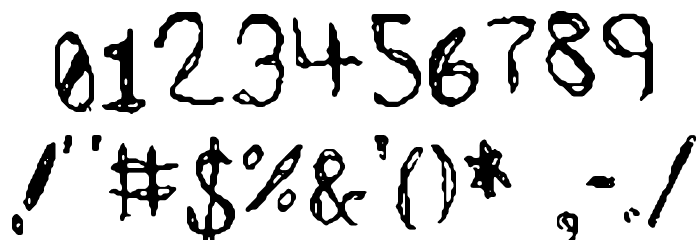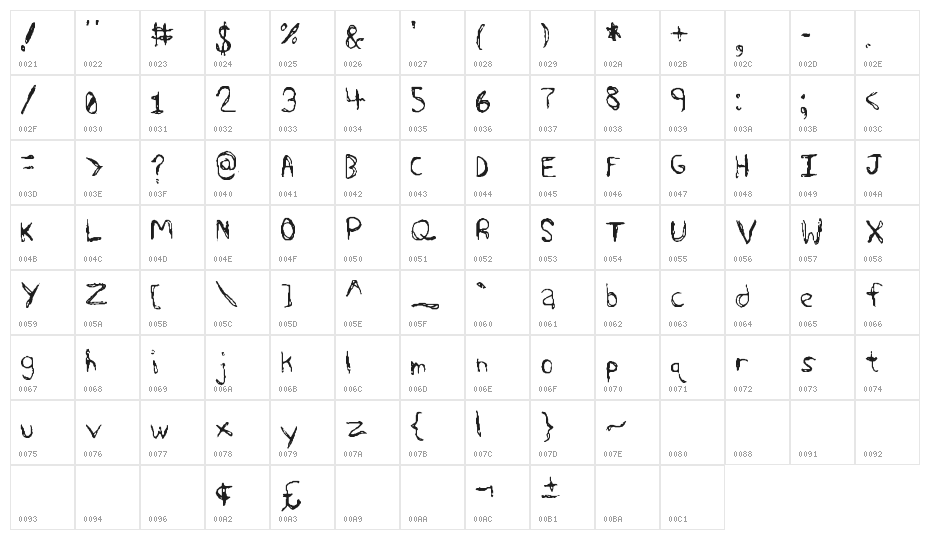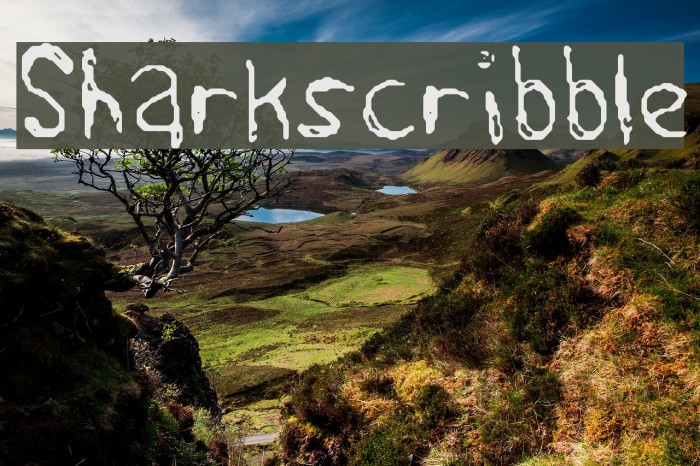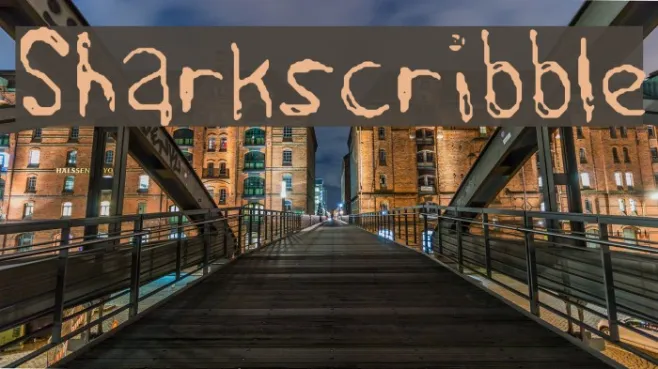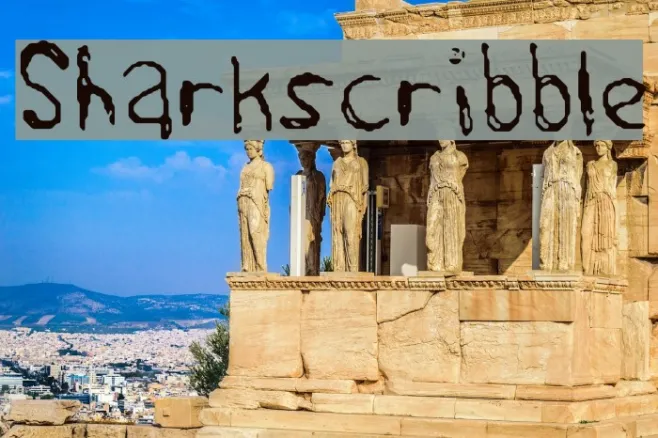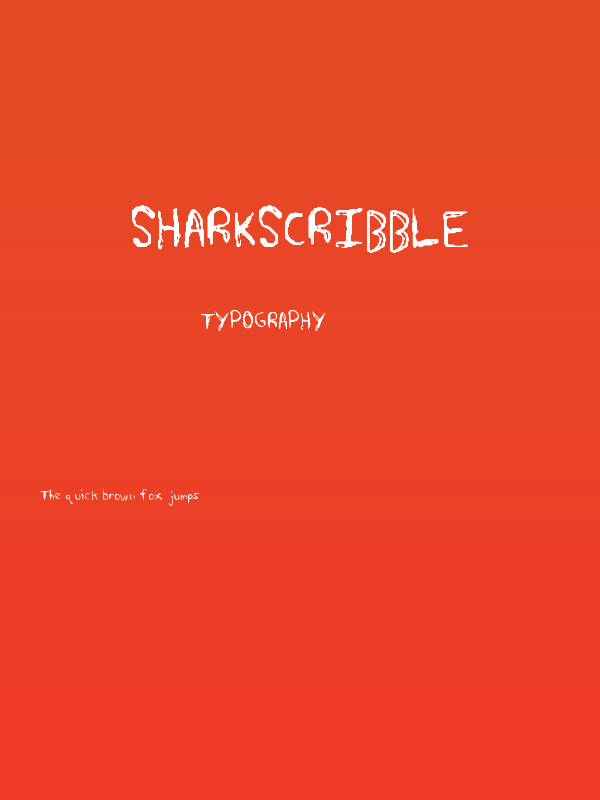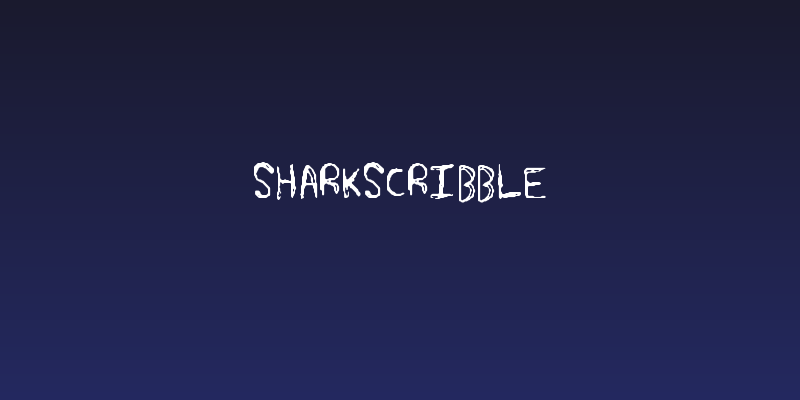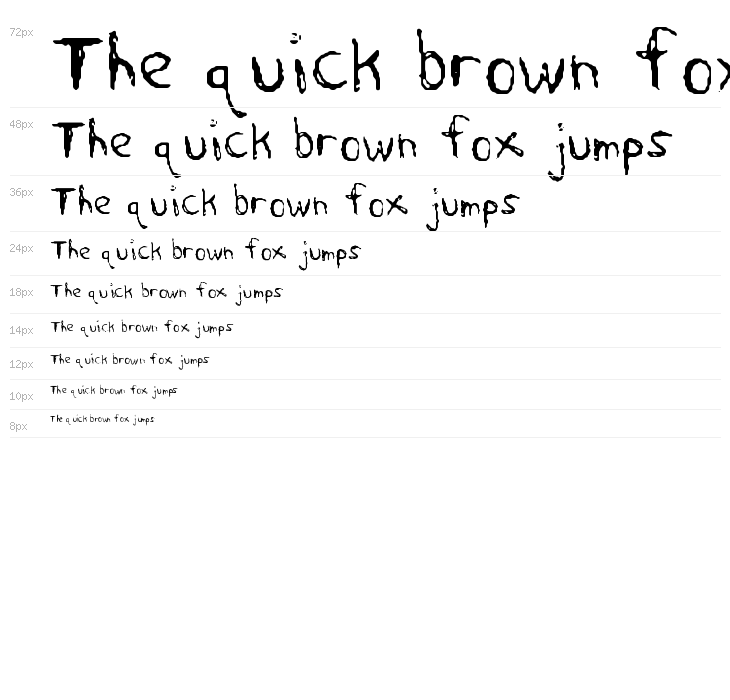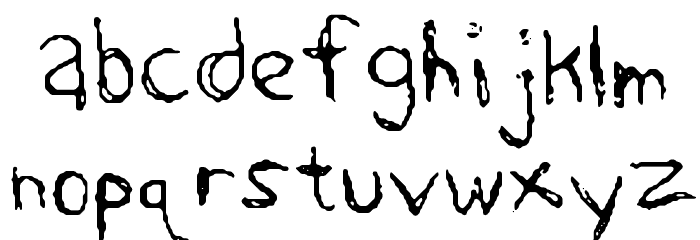
Sharkscribble Font
Sharkscribble Description
This font exudes a raw, hand-drawn aesthetic, reminiscent of scribbles or sketches. The characters are uneven and irregular, giving it a spontaneous and energetic feel. The strokes are bold and vary in thickness, adding to the chaotic charm. Each letter has a unique, quirky shape, with some leaning or appearing slightly distorted, enhancing the informal and playful nature. The numbers and special characters follow the same style, maintaining consistency throughout. This font is ideal for projects that require a personal, artistic touch.
| Use Case | Logos, Posters, Artistic projects |
| Proposed Projects | Great for artistic projects, children's books, informal posters, or any design requiring a playful and personal touch. |